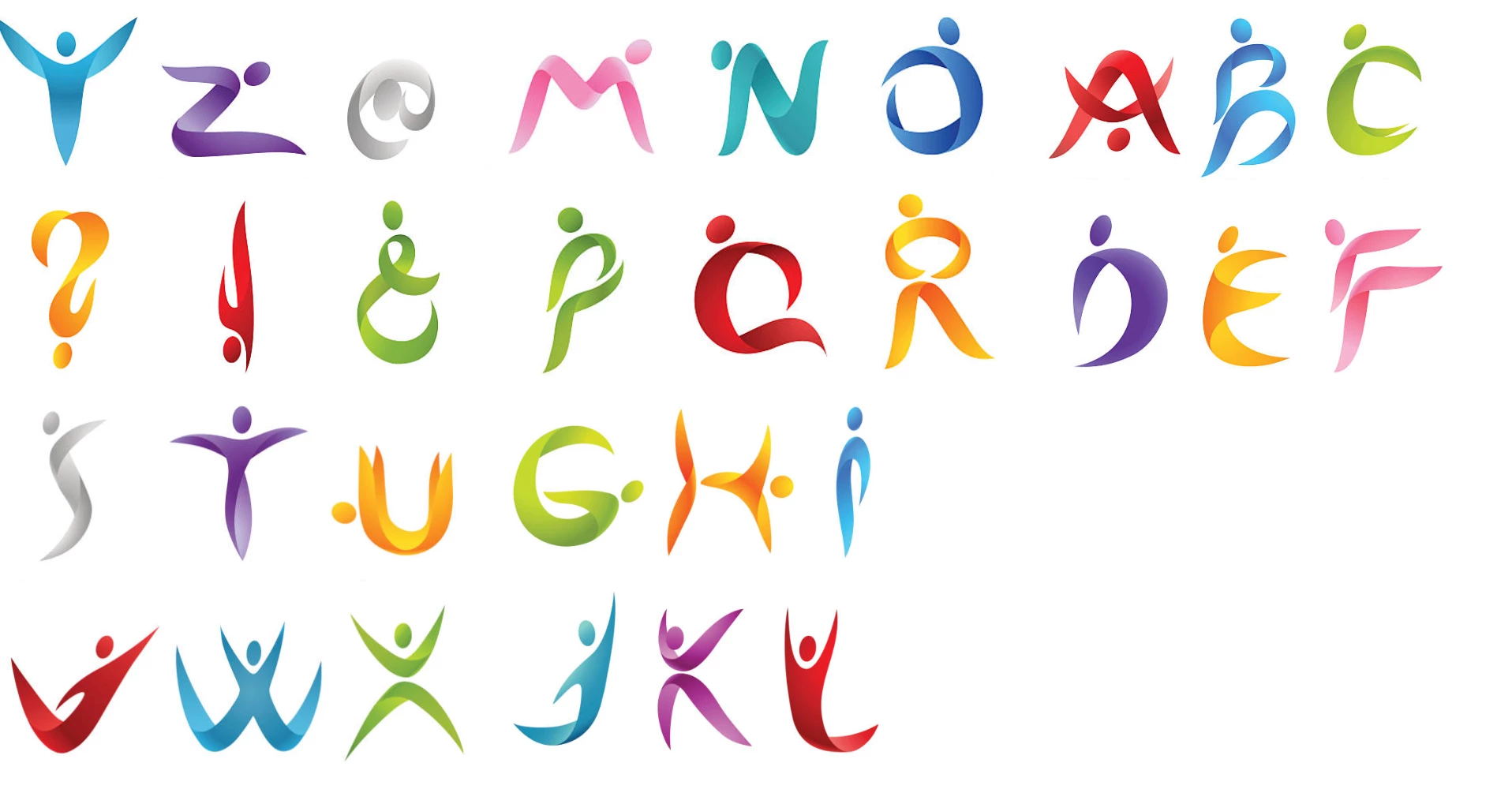
People Font
Several years ago, I used a “People Font” — a font where all the letters were composed of people. I can not remember the name or find the font search as I might. The font looked something like the attached istock stock image. The image is for reference only. Does anyone know the name of the font I used back then, or know a similar font available today, that I can use to set live type?